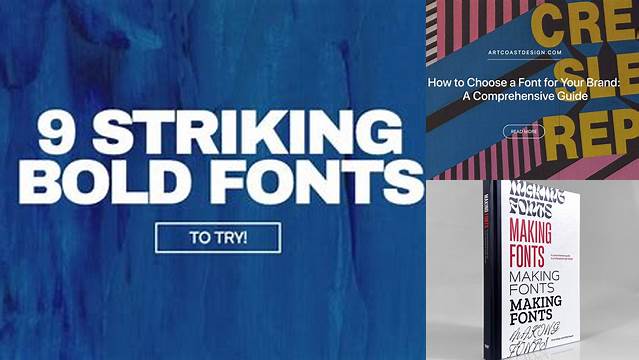
Bold Fonts For Thumbnails: Best Choices & How To Use
Hey guys! Ever wondered how to make your YouTube thumbnails pop? One of the most crucial elements is using the right bold fonts. A killer thumbnail can be the difference between a click and a scroll, and the font you choose plays a massive role in grabbing attention. In this guide, we’re diving deep into the world of bold fonts for thumbnails, exploring why they matter, which ones work best, and how to use them effectively. Let’s get started and make those thumbnails shine!
Why Bold Fonts Matter for Thumbnails
Bold fonts are essential for thumbnails because they instantly grab the viewer's attention. In the crowded landscape of online content, where videos compete for precious seconds of viewer attention, a clear, bold title can make all the difference. Think about it: when you're scrolling through YouTube, what makes you stop? It's often a combination of a captivating image and text that's easy to read at a glance. That's where bold fonts come into play. They ensure your message is clear, concise, and impossible to miss. Using bold fonts in your thumbnails isn’t just about aesthetics; it’s about making your content discoverable and accessible. A bold font ensures that the key message of your video is immediately apparent, even on small screens. This is crucial for mobile viewers, who make up a significant portion of online video consumption. Imagine trying to read a thin, delicate font on a phone – it's a recipe for a missed opportunity. Bold fonts cut through the visual noise, making your thumbnail stand out from the competition. Moreover, bold fonts communicate a sense of confidence and importance. When you use a strong, bold typeface, you're telling viewers that your content is worth their time. It’s a subtle psychological cue that can significantly impact click-through rates. Whether you're creating tutorials, vlogs, or product reviews, bold fonts convey a sense of authority and reliability. They help establish your brand and make your videos more memorable. Think of some of the most successful channels on YouTube – chances are, they're using bold fonts in their thumbnails consistently. This isn't a coincidence; it's a deliberate strategy to optimize their content for maximum visibility. By incorporating bold fonts into your thumbnail design, you're investing in the first impression of your video. It's a small detail that can have a huge impact on your video's performance. So, the next time you're designing a thumbnail, remember the power of bold fonts and how they can elevate your content above the noise. In summary, bold fonts matter because they enhance readability, grab attention, convey importance, and ultimately, drive more clicks to your videos. They're a critical tool in the arsenal of any content creator looking to grow their audience and make a lasting impact. Don’t underestimate the power of a well-chosen bold font – it could be the key to your next viral video!
Top Bold Fonts for Eye-Catching Thumbnails
Choosing the right bold fonts for your thumbnails is crucial, guys. It’s not just about picking something that looks good; it’s about selecting a typeface that’s legible, eye-catching, and aligns with your brand. So, let's dive into some top contenders that can help your thumbnails grab attention and boost your click-through rates. First up, we have Impact. This font is a classic for a reason. Its condensed, bold letters are highly readable even at smaller sizes, making it perfect for thumbnails viewed on various devices. Impact exudes a sense of urgency and importance, making it ideal for content that needs to convey a strong message quickly. Next, consider Bebas Neue. This sans-serif font is clean, modern, and incredibly versatile. Its tall, narrow letters allow you to fit more text in your thumbnail without sacrificing readability. Bebas Neue has a contemporary feel, making it a great choice for tech reviews, tutorials, and lifestyle content. Another standout option is Montserrat. This font family offers a range of weights, but the extra-bold versions are particularly effective for thumbnails. Montserrat is known for its geometric design and clean lines, providing a professional and polished look. It works well for a variety of topics, from business advice to creative projects. For a more playful and energetic vibe, check out Luckiest Guy. This hand-drawn, bold font has a retro feel that can instantly make your thumbnails more engaging. It’s a fantastic choice for gaming videos, vlogs, and content that targets a younger audience. If you’re looking for something with a bit more personality, Roboto Black is an excellent choice. Part of the larger Roboto family, this bold typeface is highly legible and has a friendly, approachable feel. Roboto Black strikes a balance between professionalism and warmth, making it suitable for a wide range of content, from educational videos to personal stories. Don't overlook the power of Arial Black, either. While it might seem like a basic choice, Arial Black is incredibly effective due to its simplicity and clarity. Its thick, bold letters stand out against any background, ensuring your message is seen. It’s a reliable option for any thumbnail, regardless of the content type. Lastly, consider Open Sans Extra Bold. This font is another excellent sans-serif option that's highly readable and versatile. Its clean, open design makes it easy to read on any screen, and the extra-bold weight ensures it grabs attention. Open Sans Extra Bold is a solid choice for tutorials, how-to videos, and content that needs to convey information clearly and concisely. When selecting bold fonts for your thumbnails, remember to consider your brand and the message you want to convey. Experiment with different typefaces and see what works best for your content. A well-chosen bold font can significantly impact your video's visibility and click-through rates, so it’s worth investing the time to find the perfect fit. By using these top bold fonts, you can create thumbnails that not only look great but also effectively communicate your video's content, ultimately helping you grow your audience and succeed on platforms like YouTube.
How to Use Bold Fonts Effectively in Thumbnails
Alright, guys, now that we’ve covered why bold fonts are crucial and looked at some top options, let’s get into the nitty-gritty of how to use them effectively in your thumbnails. It’s not just about slapping on a bold typeface; it’s about strategic implementation to maximize impact. First off, contrast is key. Your bold font needs to stand out against the background image. If your background is busy or colorful, opt for a font color that’s the opposite – think white on dark or dark on light. Using a color that blends in will make your text disappear, defeating the purpose of using a bold font in the first place. Ensure your font color pops by choosing high-contrast options that immediately draw the eye. Next, size matters. Make sure your bold font is large enough to be easily read, even on small screens. Viewers often browse on mobile devices, so a tiny font will be illegible and ineffective. Experiment with different sizes until you find the sweet spot where your text is prominent without overwhelming the image. A good rule of thumb is to make your text as large as possible while still maintaining a balanced composition. Think about placement too. Where you position your bold font in relation to the other elements of your thumbnail can make a big difference. Avoid covering up important visual elements or placing text in areas that are too cluttered. Consider the natural flow of the image and position your text where it will naturally catch the viewer's eye. Using a clear, uncluttered space will ensure your bold font stands out and delivers its message effectively. Limit the amount of text you use. Thumbnails should be a quick snapshot of your video's content, not a novel. Stick to a few key words or a short, punchy phrase that grabs attention and conveys the main idea. Overcrowding your thumbnail with text will make it look busy and confusing, reducing its effectiveness. A concise message delivered in a bold font is far more impactful than a lengthy sentence that's hard to read. Consistency is crucial, especially if you're building a brand. Use the same bold fonts and color schemes across all your thumbnails to create a cohesive visual identity. This helps viewers recognize your content at a glance and reinforces your brand. Developing a consistent style not only looks professional but also helps build trust and familiarity with your audience. Experiment with different styles, but don't overdo it. While bold fonts are great for grabbing attention, pairing them with a complementary font can add visual interest and hierarchy. For example, you might use a bold font for the main title and a smaller, less bold font for a subtitle or additional information. Just be sure to choose fonts that work well together and don't clash. Lastly, test your thumbnails to see what works best. YouTube's analytics can provide valuable insights into which thumbnails are performing well. Try A/B testing different font styles, colors, and placements to see what drives the most clicks. Continuous testing and refinement will help you optimize your thumbnails for maximum impact. In conclusion, using bold fonts effectively in thumbnails is about more than just choosing a strong typeface. It’s about strategic implementation that takes into account contrast, size, placement, text limits, consistency, and testing. By following these tips, you can create thumbnails that not only look great but also effectively communicate your video's content and attract more viewers. So, go ahead and experiment with bold fonts to elevate your thumbnails and boost your channel's success.
Tools for Creating Thumbnails with Bold Fonts
Alright, guys, let's talk tools. Creating eye-catching thumbnails with bold fonts doesn’t require you to be a design expert. There are plenty of user-friendly tools out there that make it easy to whip up professional-looking thumbnails in no time. Whether you're a seasoned creator or just starting out, having the right tools in your arsenal can make a huge difference. First up, we have Canva. This is a powerhouse in the world of graphic design, and for good reason. Canva offers a vast library of templates, graphics, and, of course, bold fonts that you can use to create stunning thumbnails. Its drag-and-drop interface makes it super easy to customize your designs, even if you have zero design experience. Plus, Canva offers both free and paid plans, so you can start creating right away without breaking the bank. Another fantastic tool is Adobe Photoshop. If you’re looking for something with a bit more power and flexibility, Photoshop is the industry standard for graphic design. While it has a steeper learning curve than Canva, Photoshop gives you unparalleled control over every aspect of your thumbnail design, including font selection, color correction, and image manipulation. With its extensive features, you can create highly polished and professional thumbnails that truly stand out. If you prefer something simpler and more focused on thumbnail creation, check out PicMonkey. This online photo editor offers a range of tools specifically designed for creating thumbnails, social media graphics, and other visual content. PicMonkey’s intuitive interface and pre-sized templates make it easy to get started, and it offers a great selection of bold fonts and design elements to make your thumbnails pop. For those who love mobile editing, PixelLab is a fantastic option. This mobile app is packed with features for creating text-based designs, making it perfect for thumbnails that rely heavily on bold fonts. PixelLab offers a wide variety of fonts, text effects, and customization options, allowing you to create unique and eye-catching thumbnails directly from your phone or tablet. Another great mobile app for thumbnail creation is Phonto. This app is specifically designed for adding text to images, making it ideal for creating thumbnails with bold fonts. Phonto offers a huge library of fonts to choose from, as well as options for customizing text size, color, spacing, and more. Its simple and intuitive interface makes it easy to create professional-looking thumbnails on the go. Don't forget about Snappa either. This online graphic design tool is tailored for creating social media graphics, including YouTube thumbnails. Snappa offers a library of pre-designed templates, a vast selection of bold fonts, and a user-friendly interface that makes it easy to create stunning thumbnails in minutes. Its drag-and-drop functionality and high-quality graphics make it a great choice for both beginners and experienced designers. Lastly, consider GIMP as a free alternative to Photoshop. GIMP (GNU Image Manipulation Program) is a powerful open-source image editor that offers many of the same features as Photoshop. While it may not be as polished as Adobe’s offering, GIMP is a capable tool for creating thumbnails with bold fonts, and it’s completely free to use. When choosing a tool for creating thumbnails, consider your skill level, budget, and specific needs. Whether you opt for a user-friendly platform like Canva, a powerful editor like Photoshop, or a mobile app like PixelLab, the key is to find a tool that you're comfortable using and that allows you to create thumbnails that effectively communicate your video's content. With the right tools and a little creativity, you can create thumbnails that not only look great but also drive more clicks and help you grow your audience.
So, guys, we’ve covered a lot about bold fonts for thumbnails, from why they matter to the top fonts to use and the tools to help you create them. The key takeaway here is that choosing the right bold font and using it effectively can significantly impact your video's success. Remember, your thumbnail is the first impression viewers have of your content, so make it count. By incorporating bold fonts strategically, you can grab attention, convey your message clearly, and ultimately boost your click-through rates. Experiment with different fonts, colors, and placements to find what works best for your brand and your audience. And don’t be afraid to try new things – the world of thumbnail design is always evolving. With the tips and tools we’ve discussed, you’re well-equipped to create thumbnails that not only look great but also help you achieve your video goals. So go out there and make those thumbnails shine!